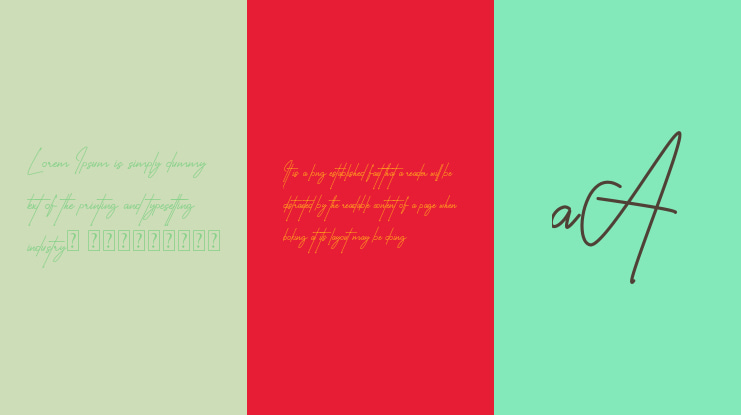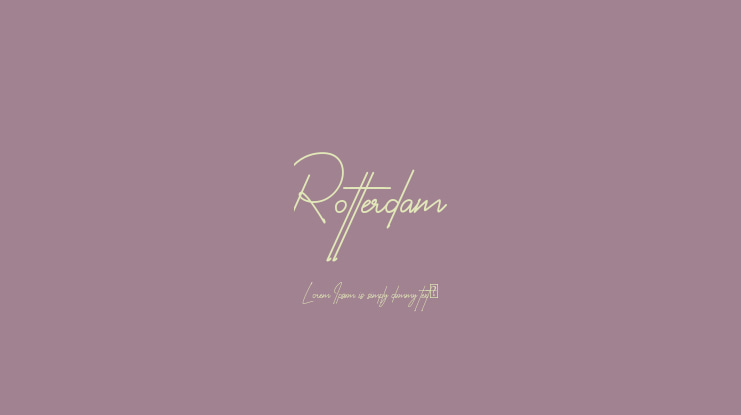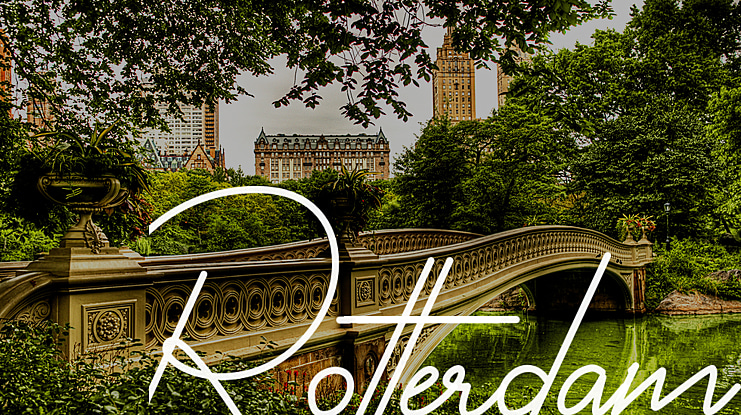
Rotterdam Font
Rotterdam Signature Font – . It's Perfect for personal branding, logo, invitation, social media posts, advertisements, product packaging, product designs, label, photography, watermark, special events or anything.